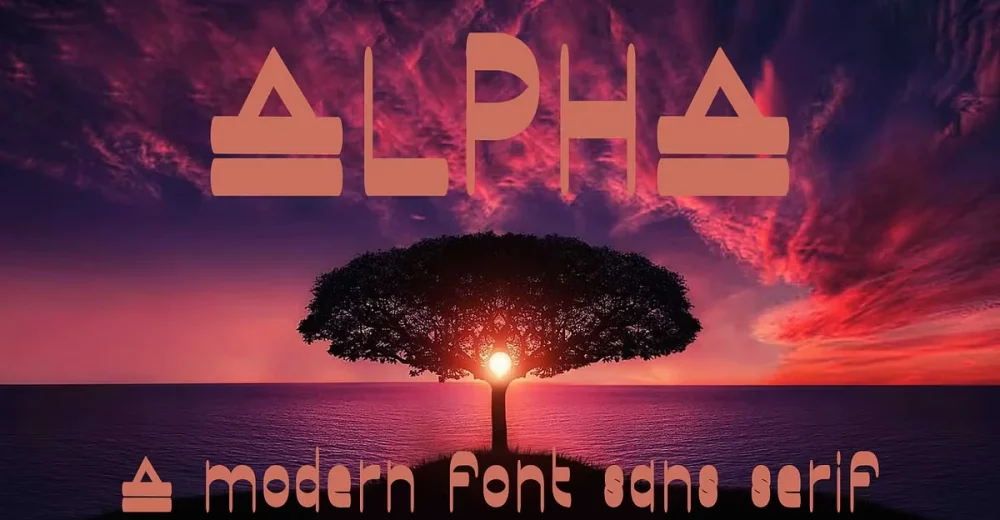
Introducing Alpha, a modern and simple sans serif font. So perfect for you who needs a typeface for logo designs, magazine, social media, brochure, and many more.
- Uppercase
- Lowercase
- Numerals
- Punctuation